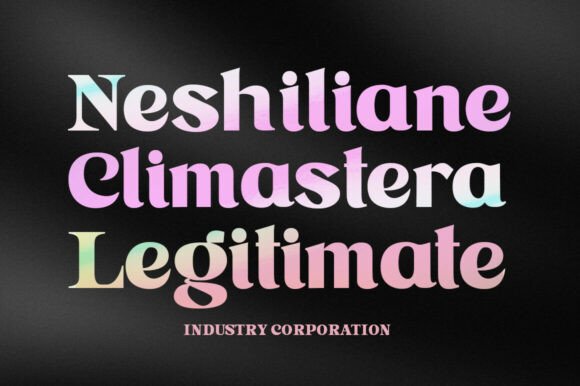
Astone Nisam Font: Elevate Your Designs with Elegance and Versatility
In the world of typography, fonts play a crucial role in conveying messages, expressing emotions, and creating visual identities. Among the numerous fonts available, Astone Nisam stands out as a unique and captivating choice. This article will delve into the features, benefits, and applications of Astone Nisam, an elegant, modern, and contrasting serif and italic font.
Astone Nisam: A Modern and Contrasting Font
Astone Nisam is an elegant, modern, and contrasting serif and italic font designed to add a touch of sophistication to any project. Its free-flowing style makes it perfect for a wide range of applications, from logos and advertisements to packaging, book and magazine covers, titles, and descriptions.
This versatile font is characterized by its:
- Elegant design: Astone Nisam boasts a refined and polished appearance, making it ideal for projects that require a high level of sophistication.
- Modern style: The font’s modern aesthetic ensures that it stays relevant and fresh, even in today’s fast-paced design landscape.
- Contrasting serif and italic features: The combination of serif and italic elements creates a visually appealing contrast that adds depth and interest to any design.
- Easy readability: Astone Nisam is designed to be easy to read, making it perfect for body text, titles, and descriptions.
Endless Possibilities with Astone Nisam
Astone Nisam’s versatility makes it suitable for a wide range of applications, including:
- Logo design: Create stunning logos that make a lasting impression with Astone Nisam’s elegant and modern design.
- Advertisements: Use Astone Nisam to create eye-catching advertisements that grab attention and convey your message effectively.
- Packaging design: Add a touch of sophistication to your packaging designs with Astone Nisam’s refined and polished appearance.
- Book and magazine covers: Create captivating covers that stand out on bookshelves and newsstands with Astone Nisam’s contrasting serif and italic features.
- Titles and descriptions: Use Astone Nisam to create engaging titles and descriptions that draw readers in and keep them interested.
Typography Tips for Using Astone Nisam
To get the most out of Astone Nisam, consider the following typography tips:
- Pair with complementary fonts: Combine Astone Nisam with complementary fonts to create visual interest and add depth to your designs.
- Experiment with font sizes: Play with different font sizes to create a hierarchy of information and guide the reader’s attention.
- Pay attention to line spacing: Ensure that line spacing is consistent and visually appealing to maintain readability and flow.
- Use color effectively: Select colors that complement Astone Nisam’s elegant design and modern style to create a cohesive visual identity.
Design Inspiration with Astone Nisam
Astone Nisam’s unique design and versatility make it an excellent choice for designers seeking inspiration. Here are a few ideas to get you started:
- Minimalist designs: Use Astone Nisam to create stunning minimalist designs that rely on typography to convey messages.
- Luxury branding: Leverage Astone Nisam’s elegant design and modern style to create luxury brands that exude sophistication and refinement.
- Editorial design: Apply Astone Nisam to editorial design projects, such as magazines and books, to create engaging and visually appealing content.
The Benefits of Using Astone Nisam
Astone Nisam offers numerous benefits to designers, including:
- Unique design: Astone Nisam’s contrasting serif and italic features make it a standout font that sets your designs apart.
- Versatility: This font is suitable for a wide range of applications, from logos and advertisements to packaging and editorial design.
- Easy readability: Astone Nisam’s clear and polished design ensures that your message is conveyed effectively.
- Elegant and modern style: Astone Nisam’s refined aesthetic makes it perfect for projects that require a high level of sophistication.
In conclusion, Astone Nisam is an exceptional font that offers a unique blend of elegance, modernity, and versatility. Its contrasting serif and italic features make it perfect for a wide range of applications, from logos and advertisements to packaging, book and magazine covers, titles, and descriptions. By incorporating Astone Nisam into your designs, you’ll be able to create visually stunning and effective projects that leave a lasting impression.